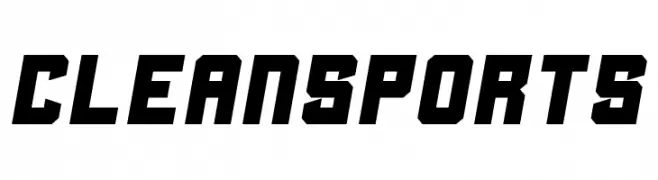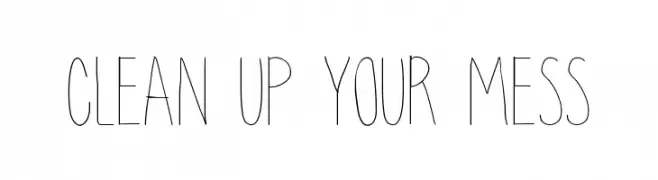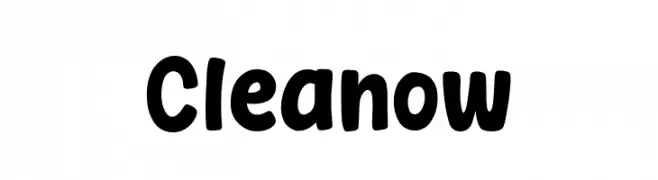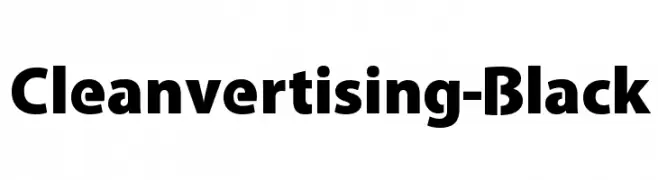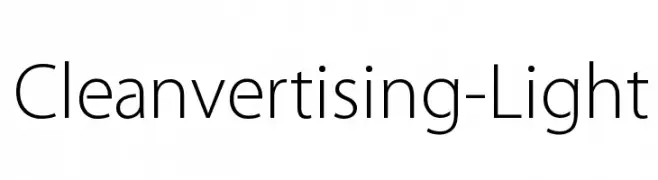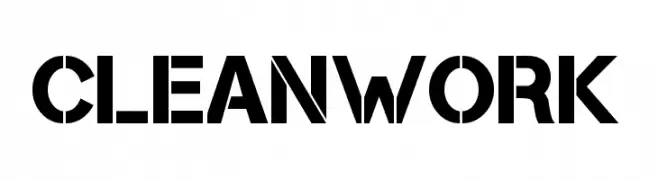
A bold, angular font with a dynamic, italicized style.
A bold, geometric stencil font with a sporty, industrial feel.
A playful, handwritten font with tall, narrow letters and thin strokes.
A bold, playful font with rounded edges and a hand-drawn feel.
A bold, geometric font with a modern, industrial aesthetic.
A bold, geometric font with unique cut-out sections for a modern, impactful look.
A playful, handwritten font with smooth, rounded edges and a casual style.